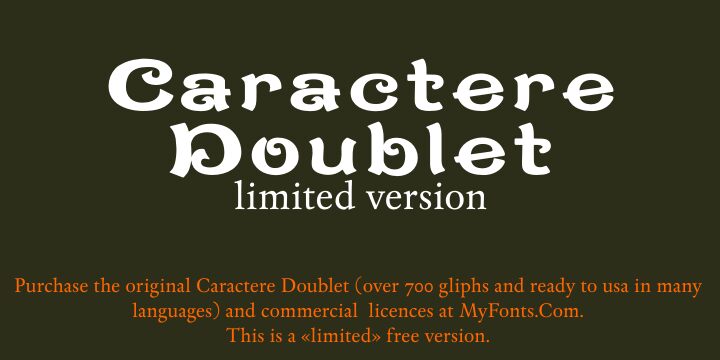
CaractereDoublet by Paulo W and Iza W of Intellecta Design is a free curly decorative display font with a theatrical, hand-cut silhouette. Broad strokes, forked tips, and curled inner shapes give the letters a lively mix of medieval ornament and cartoon exaggeration.
Its storybook-fantasy character makes it a natural fit for children's publishing, game titles, and illustrated event posters. It can also bring a playful old-world accent to confectionery packaging or festival merchandise. The recurring hooks and split ends echo crowns, banners, and carved signs, helping the lettering become part of the illustrated theme.
Caractere Doublet Limited Version and Caractere Doublet Beveled were created by Intellecta Design.
Caractere Doublet includes complete Latin, Cyrillic, and Greek character sets. It also includes complete Central European, Vietnamese, Baltic, and Turkish character sets with diacritic marks, punctuation marks, and additional characters for these ranges.
The font includes extra sets of dingbats and characters inside black, white, and outlined bullets, as well as OpenType ligatures and alternates.
The font styles are:
- Regular
- Outline
- Compressed
- Italic
- Shadow
- Wide
- ExtraWide
Doublet was a typefounder and engraver in Paris. His work can be found in Extrait du Spécimen de caractères de la fonderie Ch. Doublet, graveur (Paris, Gravure et fonderie typographiques, 60, avenue d’Orléans [1890?]).
The same foundry also published Spécimen de caractères d’imprimerie (Paris, Ch. Doublet, circa 1900, 356 pages). Source: Luc Devroye.